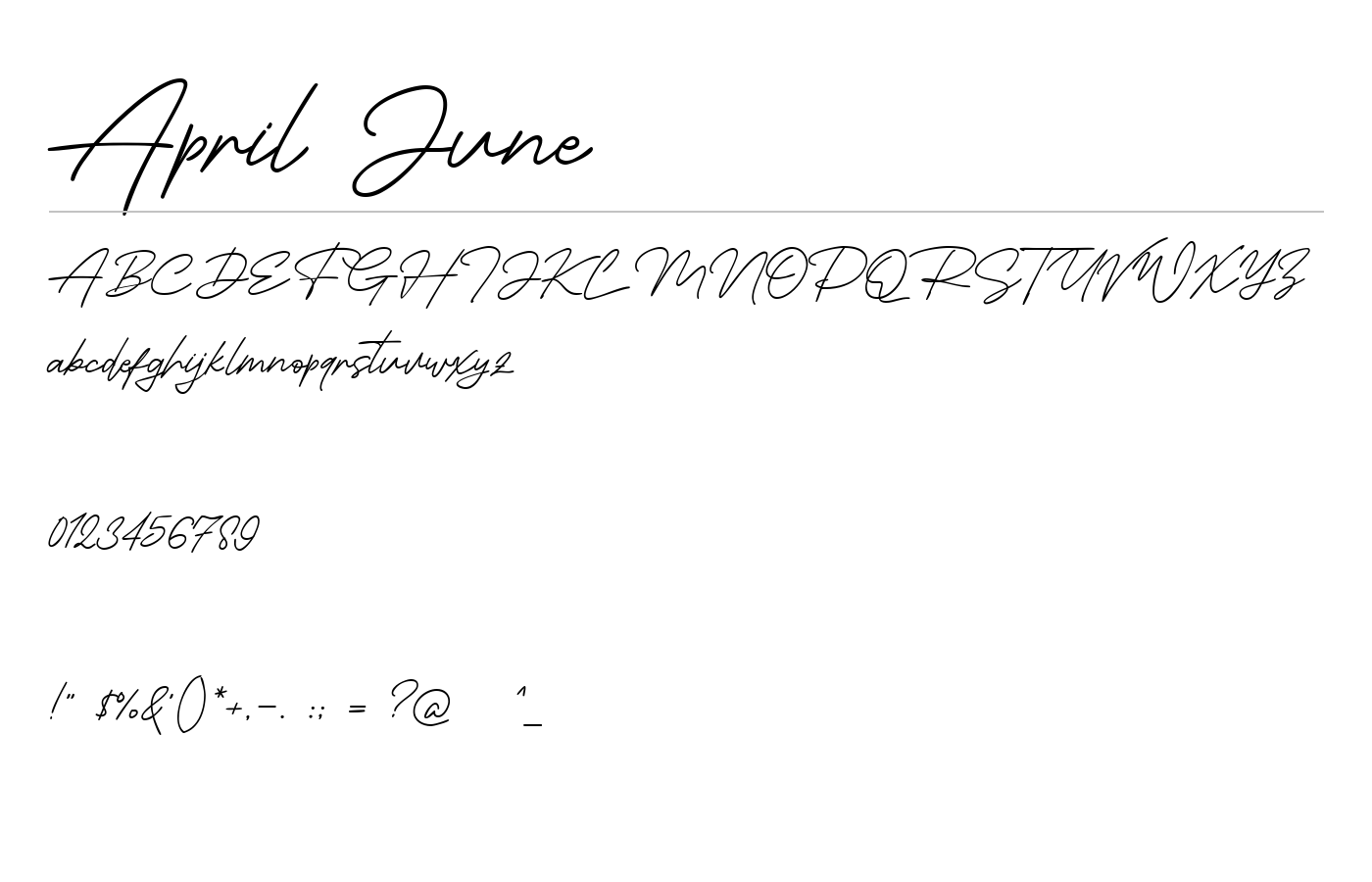
April June is a delicate, elegant script font with a light weight and flowing, handwritten style. Its slender, slightly slanted letterforms give it a graceful and modern feel, making it perfect for chic branding, invitations, and feminine design projects. This font works best in headlines or decorative text where a personal, stylish touch is desired.
April June Font
About April June Font
| Font family | April June Font |